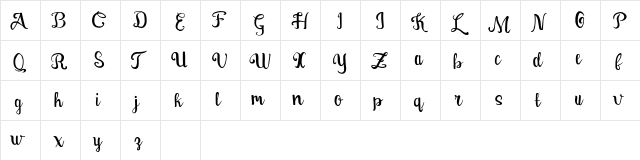
Leganttis Regular
| Designer | Giwi studio |
Design Context for Leganttis Typeface
Leganttis is a composed and adaptable typeface that performs quietly and consistently across a wide range of design contexts.